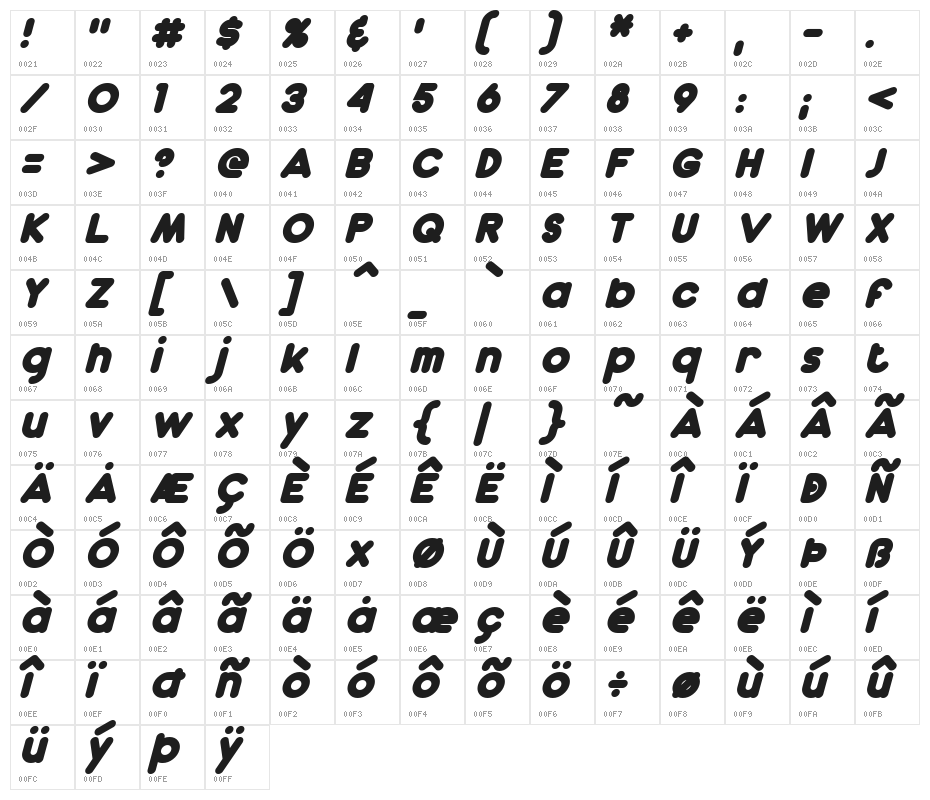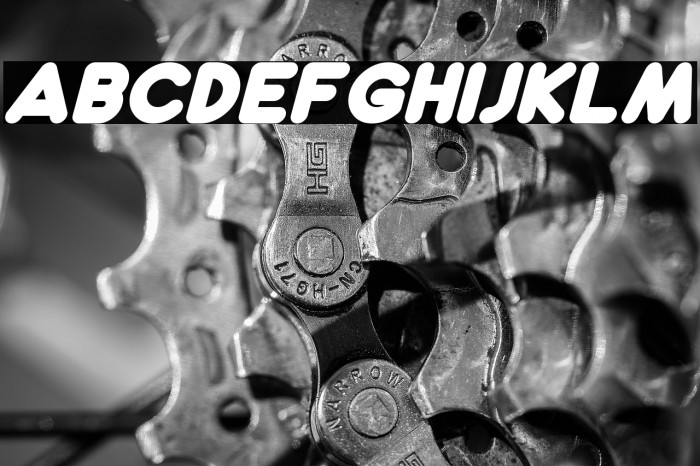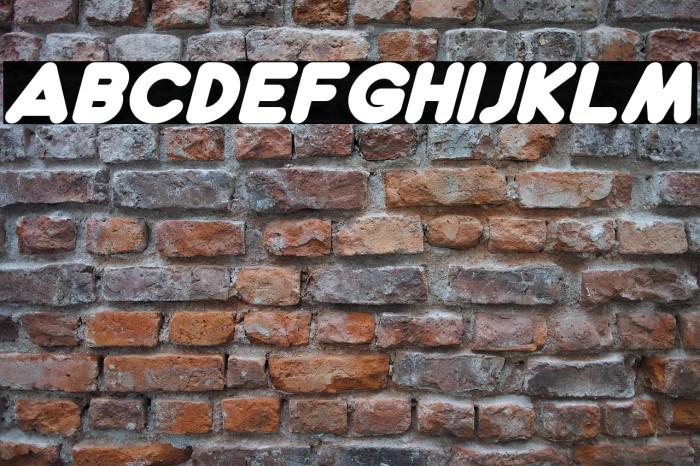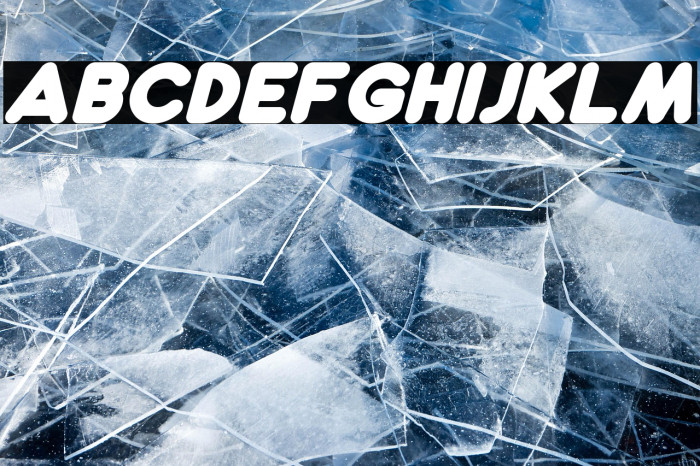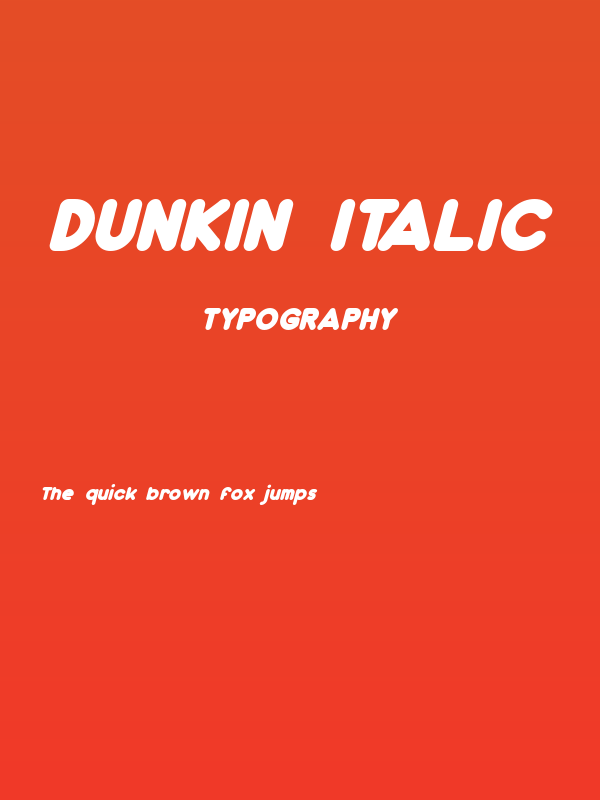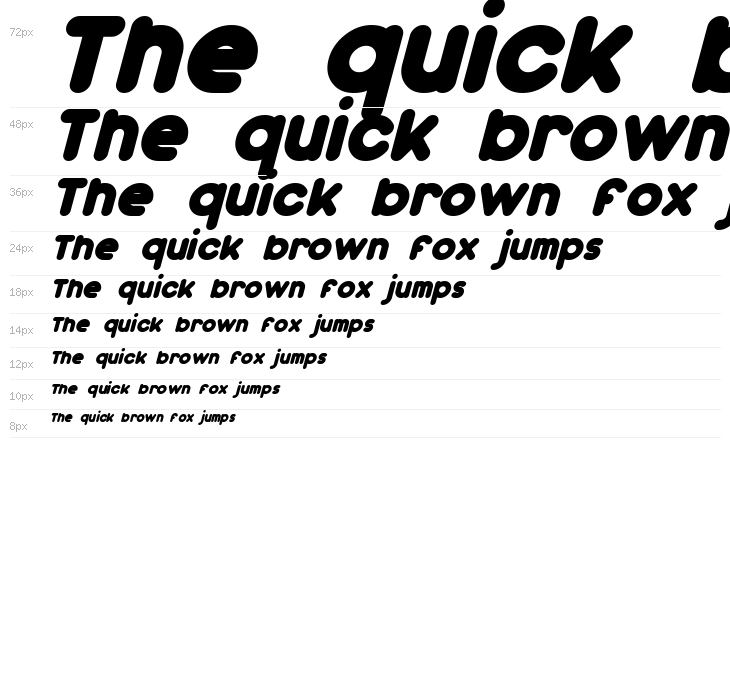
Dunkin Italic Font
Dunkin Italic Description
This font features a bold and playful style with rounded edges and a slight italic slant, giving it a dynamic and energetic appearance. The characters are thick and well-defined, making them highly legible. The rounded forms and smooth curves contribute to a friendly and approachable feel, suitable for casual and fun designs. The font maintains consistent weight throughout, ensuring a uniform look across all characters. Its boldness and unique style make it stand out, ideal for capturing attention in various design contexts.
| Overall Style | Playful, Modern |
| Proposed Projects | Ideal for branding, advertising, packaging, and children's books due to its playful and bold nature. |